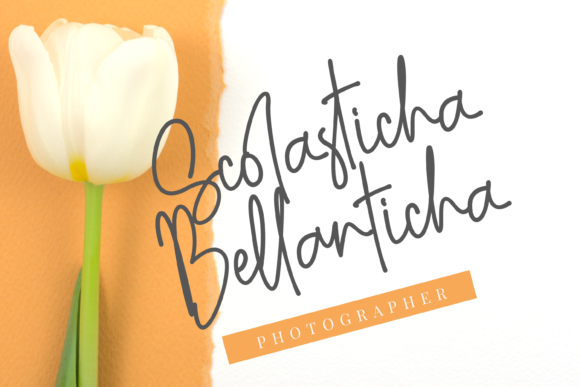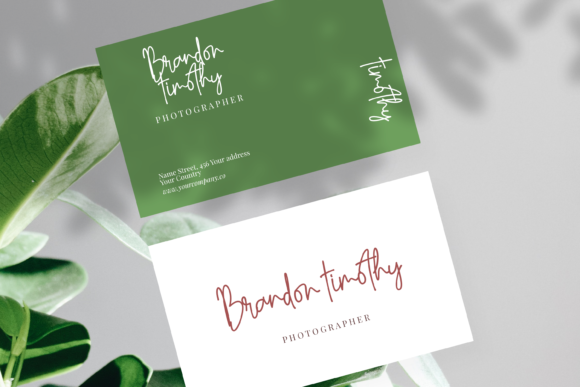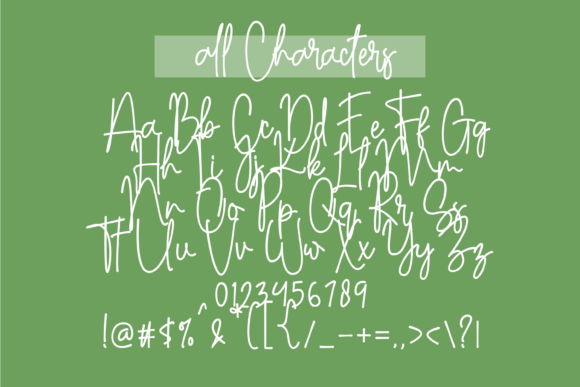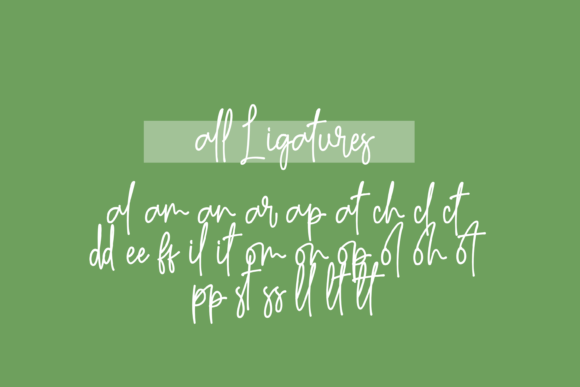
About Anasthasya Signature Font
Anasthasya Signature is a stylish and asymmetrical script font. It has a clean, thin and smooth vibe and it will be a hit for any design that you want to add it to.